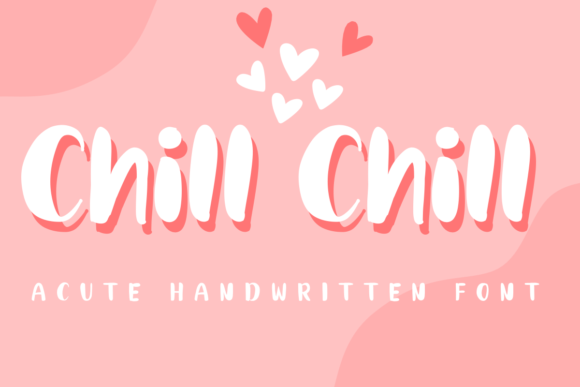
Who hasn’t been in that perfect creative moment where all the ideas just flow? You’re brainstorming a new project, and suddenly, a spark of inspiration hits you. You imagine a beautiful handwritten font that captures the essence of your project’s personality, making it stand out from the crowd.
That’s exactly what the Chill Chill Font is all about. This sweet and friendly handwritten display font is perfect for adding a fun touch to your designs, whether you’re crafting, designing digitally, or creating presentations. Its cute and playful vibe makes it an ideal choice for writing wedding invitations, cards, or any other project that requires a personal touch.
As a designer, you know how valuable it is to have the right font at your disposal. The Chill Chill Font is a game-changer, offering a unique and versatile solution for your next project. With its wide range of applications, from school projects to professional designs, this font is sure to become your go-to choice for adding a touch of chill to your creations.
Key Features of Chill Chill Font
- Unique Characteristics: Chill Chill Font features a unique blend of modern and vintage elements, giving it a distinctive and eye-catching appearance.
Designer Review: Chill Chill Font
Overall, I think the Chill Chill Font has a lot of potential, but it falls short in a few areas. Here’s my honest review.
- Unique and quirky design: The font has a fun, laid-back vibe that’s perfect for casual projects or branding.
- Good for headings: The font is bold and attention-grabbing, making it great for headings and titles.
- Highly legible: The font is easy to read, even at smaller sizes, which is a must for any font.
- Limited font styles: The font only comes in a few weights and styles, which can limit its versatility.
- No script or display variants: The font is missing some of the more decorative styles that can add visual interest to a design.
- Not ideal for formal projects: The font’s casual vibe may not be suitable for more formal or professional projects.
The Chill Chill Font is a solid choice for projects that require a relaxed, friendly feel. While it may not be perfect for every design task, it’s a great addition to any font library. With a bit more development and expansion, I think this font could be a real showstopper.
The “Chill Chill Font” is perfect for:
– Creating a relaxing and calming atmosphere in your design projects
– Adding a touch of elegance and sophistication to your text
– Creating custom graphics and logos for your brand
– Using as a title font for presentations and documents
For optimal readability, we recommend using the Chill Chill Font at a font size between 14-24 points, with a line height of at least 1.5 times the font size. This will ensure that the text is clear and easy to read, even at smaller font sizes.